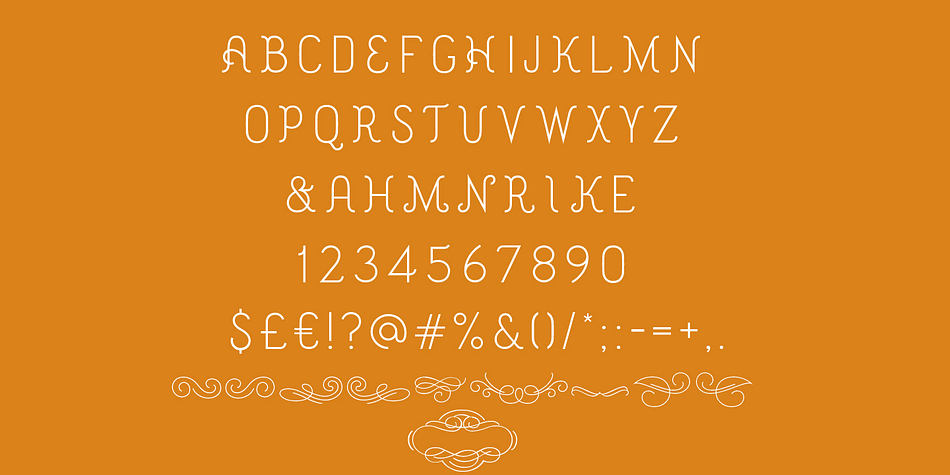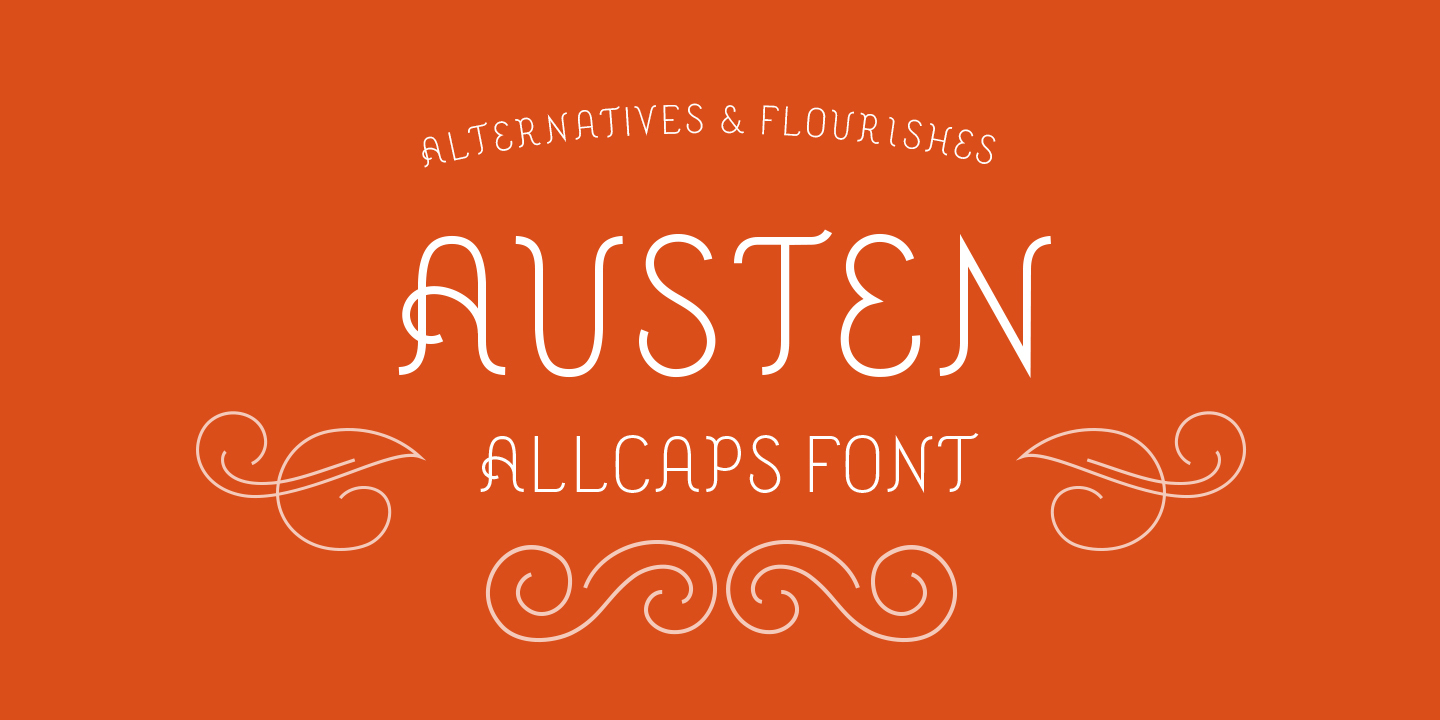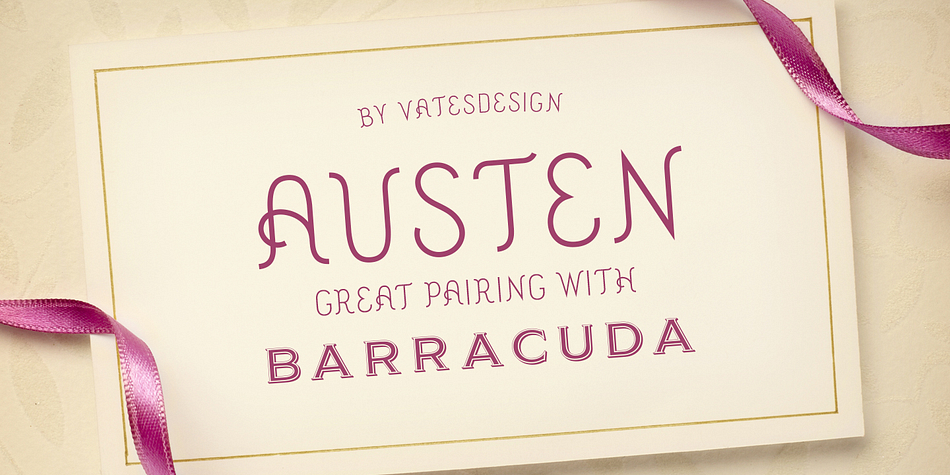
Austen is a dingbat and hand display font family. This typeface has two styles and was published by vatesdesign.
Austen is playful all caps font with Victorian flavour. It comes with stylistic alternatives for key characters and 10 flourishes.
Use it for weddings logos, monograms and fancy headlines. It also makes great pairing combination for my Barracuda Display font.